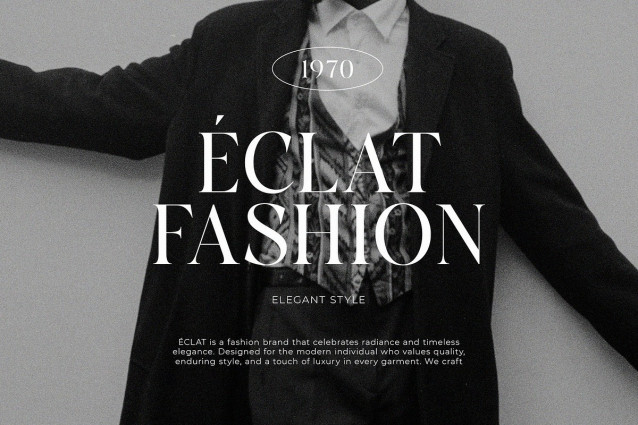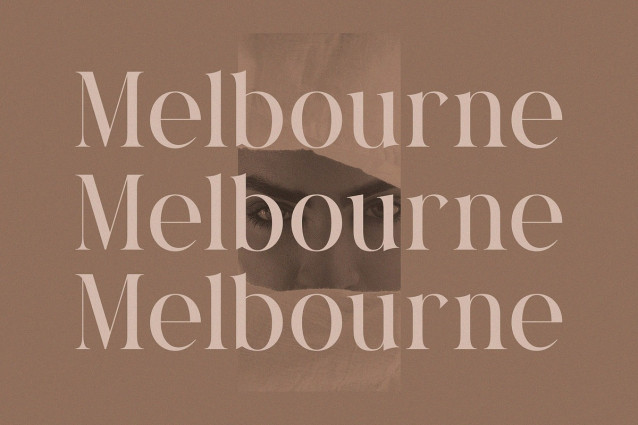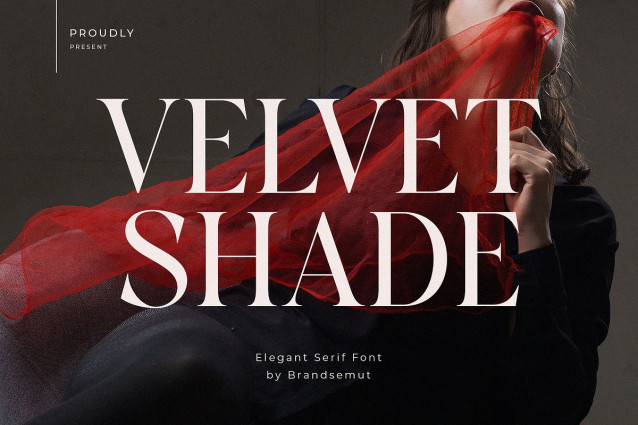
Velvet Shade Font
Velvet Shade Font is a refined and luxurious serif font crafted for designers who crave timeless elegance and artistic presence. Featuring full uppercase and lowercase characters, Velvet Shade combines high contrast strokes, graceful curves, and sharp serifs that elevate any visual composition.
Perfect for fashion editorials, beauty branding, upscale packaging, and wedding invitations, this font brings depth, drama, and sophistication to your work — just like a red velvet curtain drawn back to reveal something captivating.